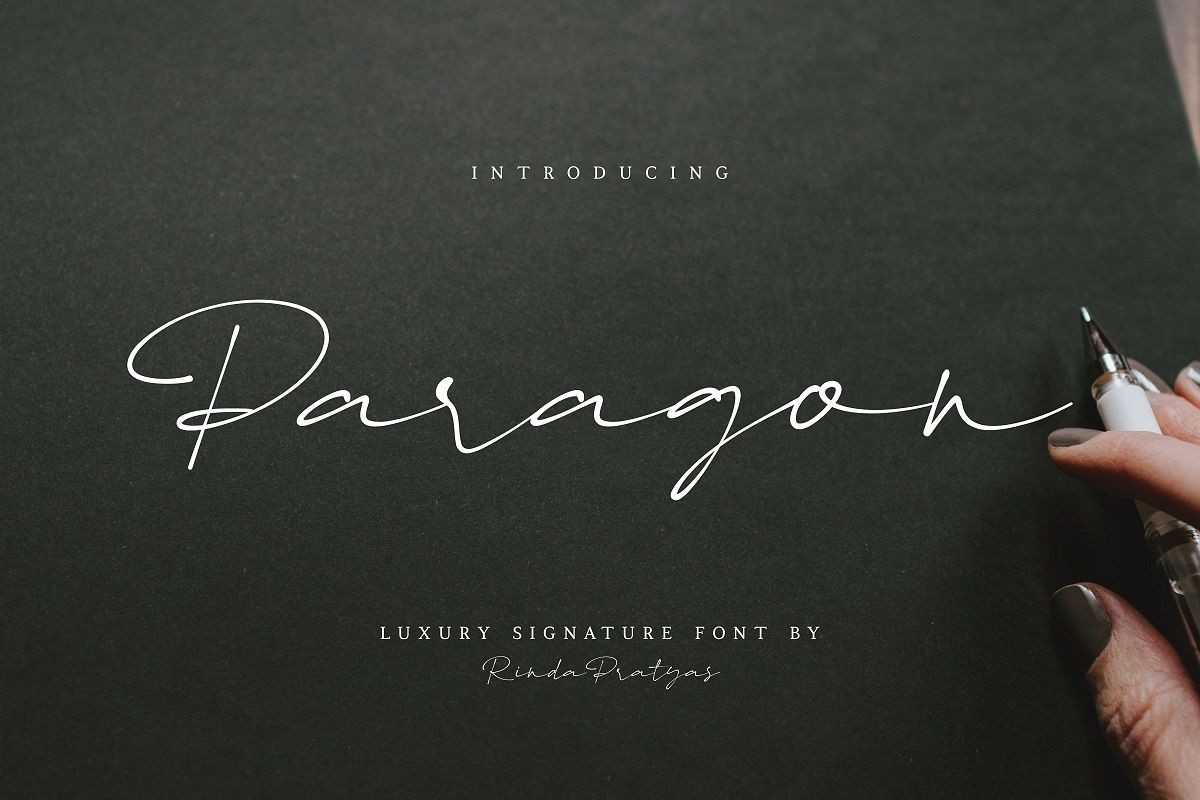
Paragon Luxury Signature Font
Paragon
Hi, Introducing my new font "Paragon" Luxury and elegant signature font.
This font perfect for branding projects, perfect for your blog, quotes, signatures, greeting cards, logos, watermarks, and much more.